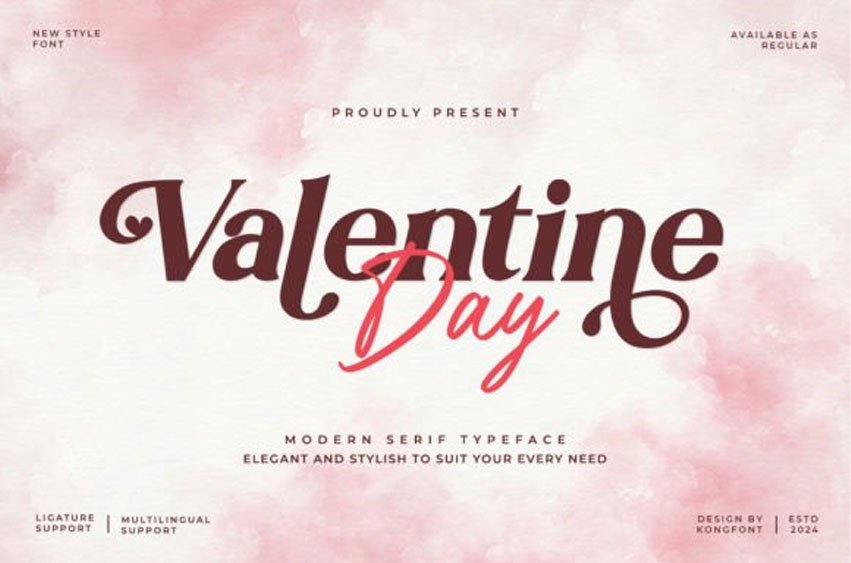
Valentine Day Font is a charming and romantic display font designed to infuse your projects with love and warmth. Perfect for all things Valentine’s Day, this font features elegant, heart-inspired details that make it ideal for creating cards, invitations, posters, and social media graphics.
With its playful yet sophisticated style, Valentine Day brings a touch of sweetness to your designs, making it the perfect choice for expressing love and affection. Whether you’re crafting romantic messages, wedding stationery, or love-themed decor, this font adds a lovely, heartfelt touch to every project.